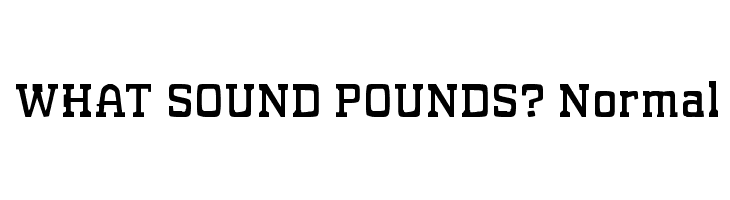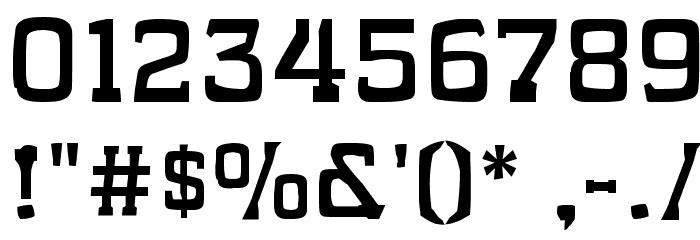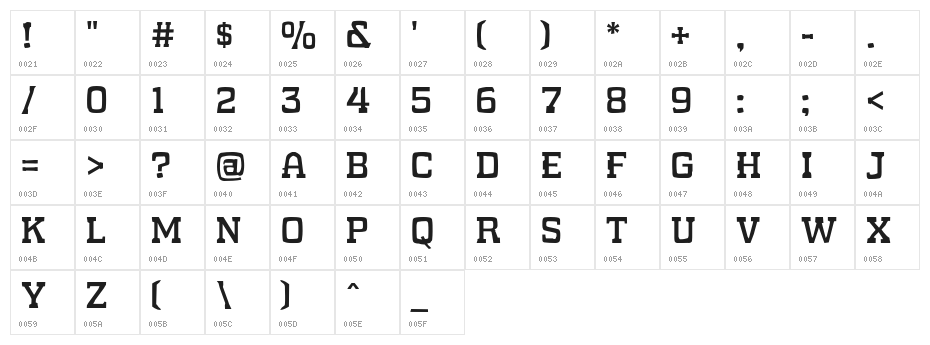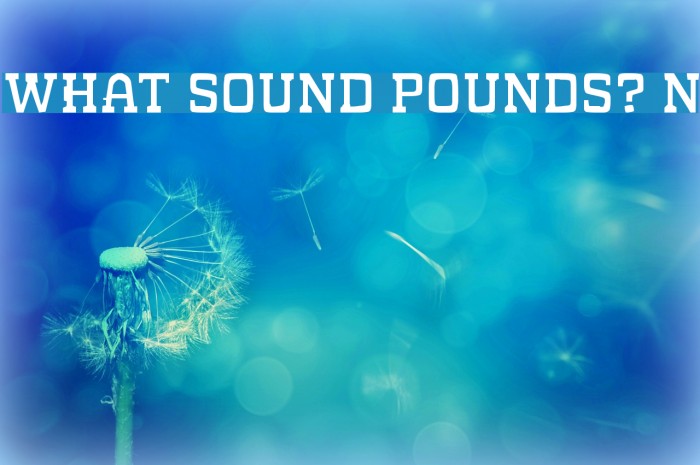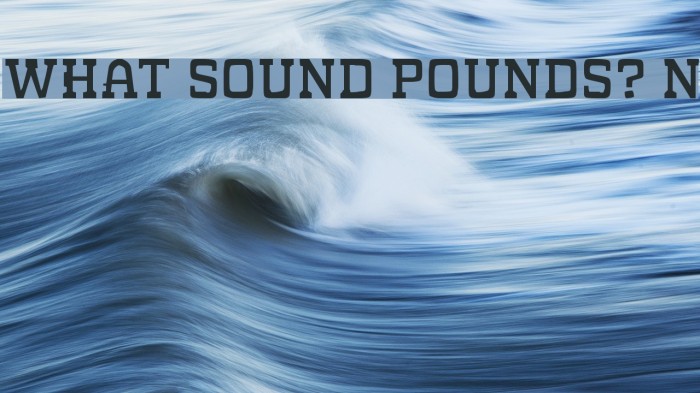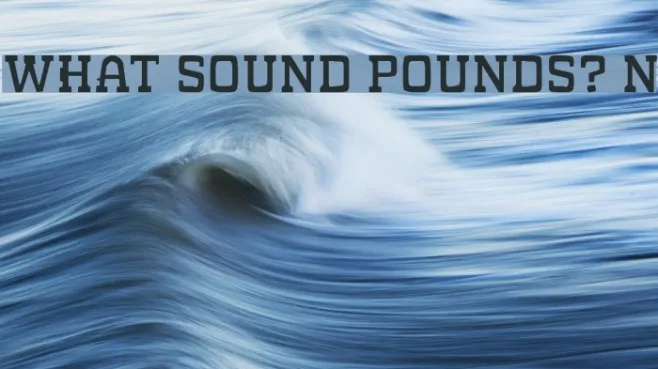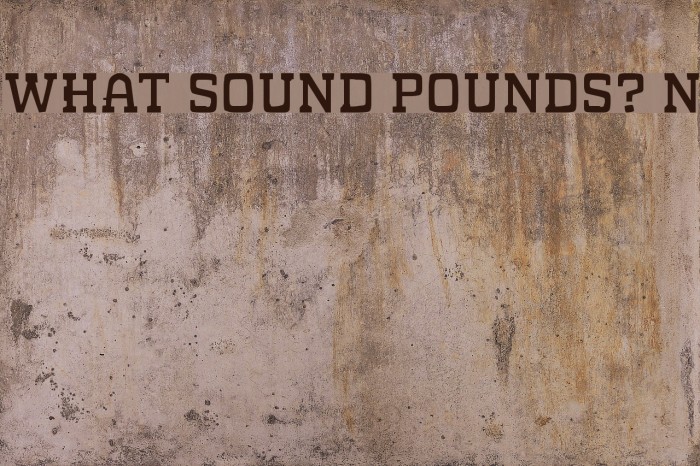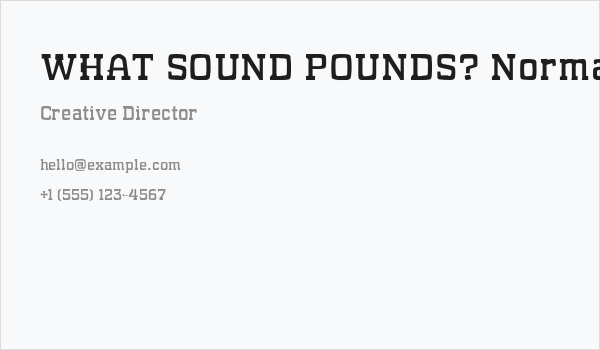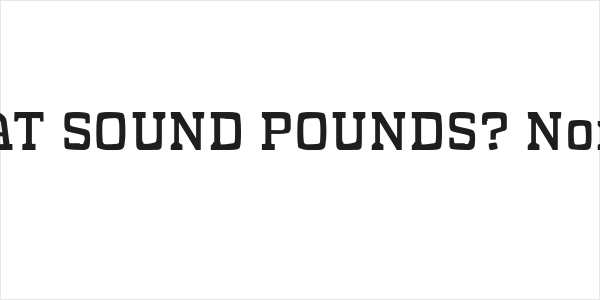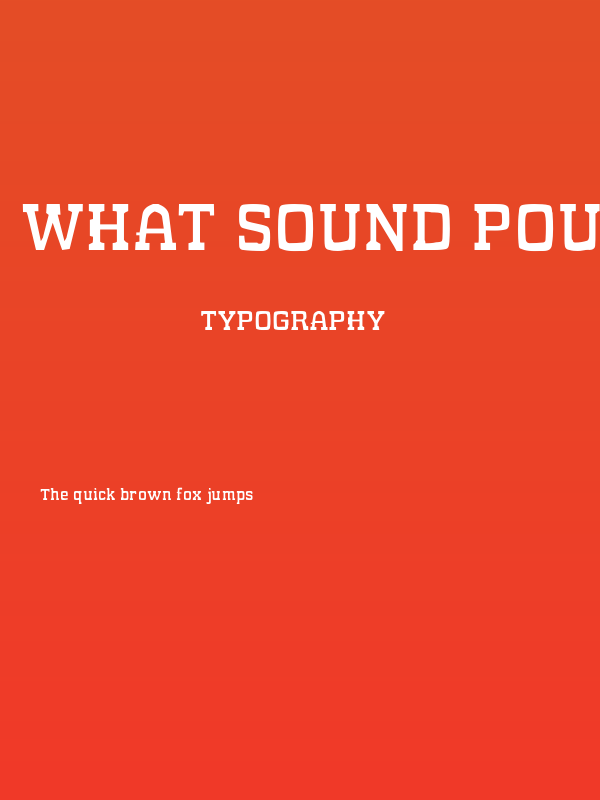
WHAT SOUND POUNDS? Normal Font
WHAT SOUND POUNDS? Normal Description
This font exhibits a bold and robust slab serif style, characterized by thick, block-like serifs that give it a strong and authoritative presence. The uppercase letters are uniform in height, with a slightly condensed appearance, while the lowercase letters maintain a consistent x-height, enhancing readability. The numerals are distinct and clear, with a geometric influence that aligns with the overall structured aesthetic. Special characters are well-integrated, maintaining the font's cohesive look. The font's design is versatile, suitable for both digital and print media, offering a modern yet timeless appeal.